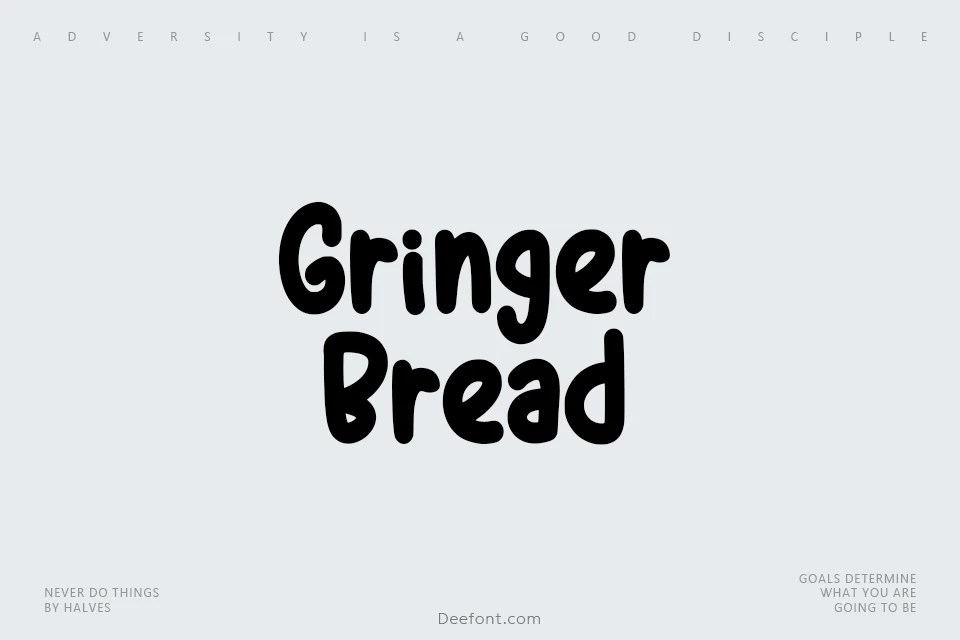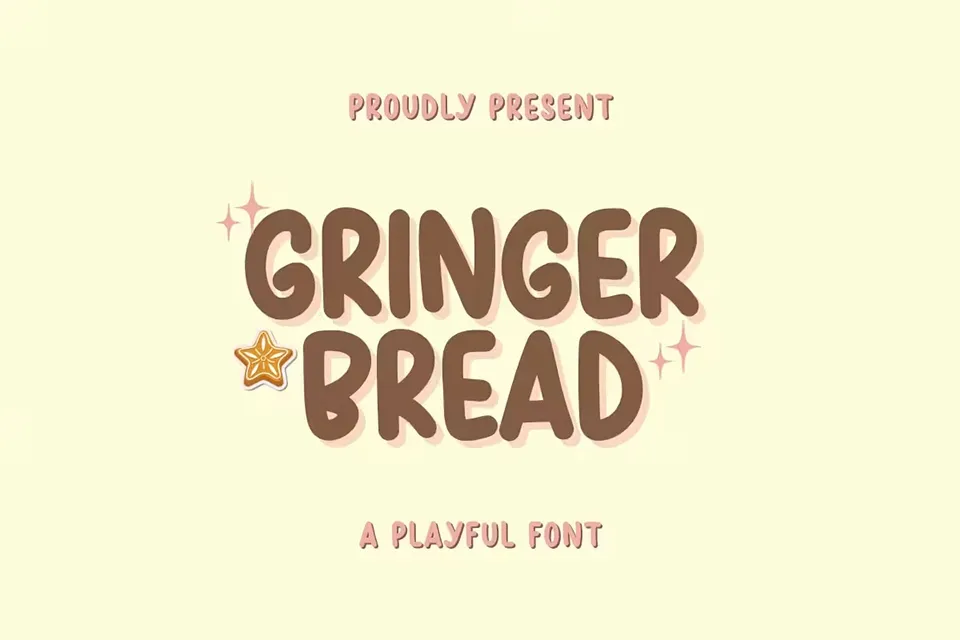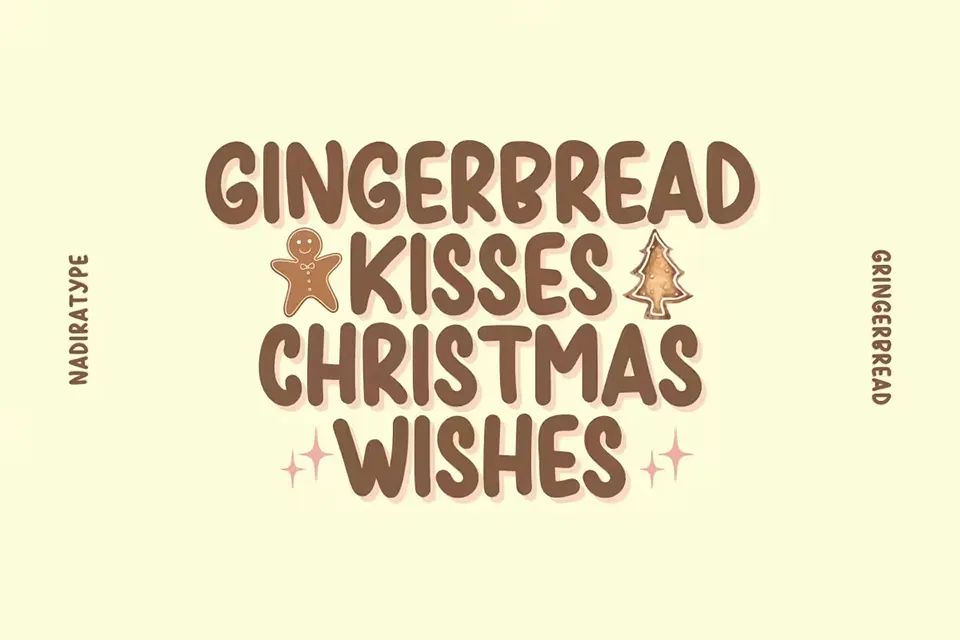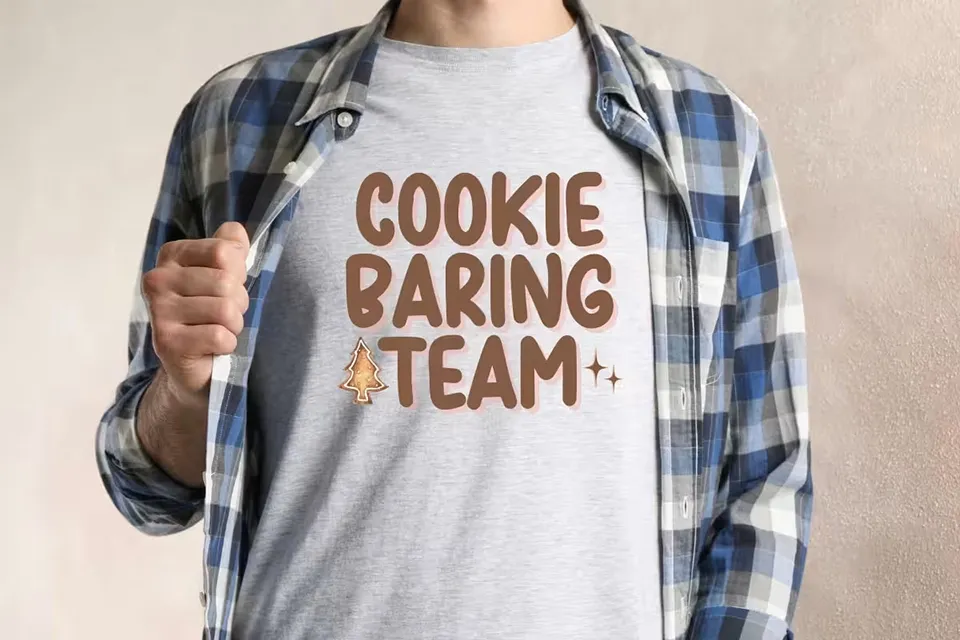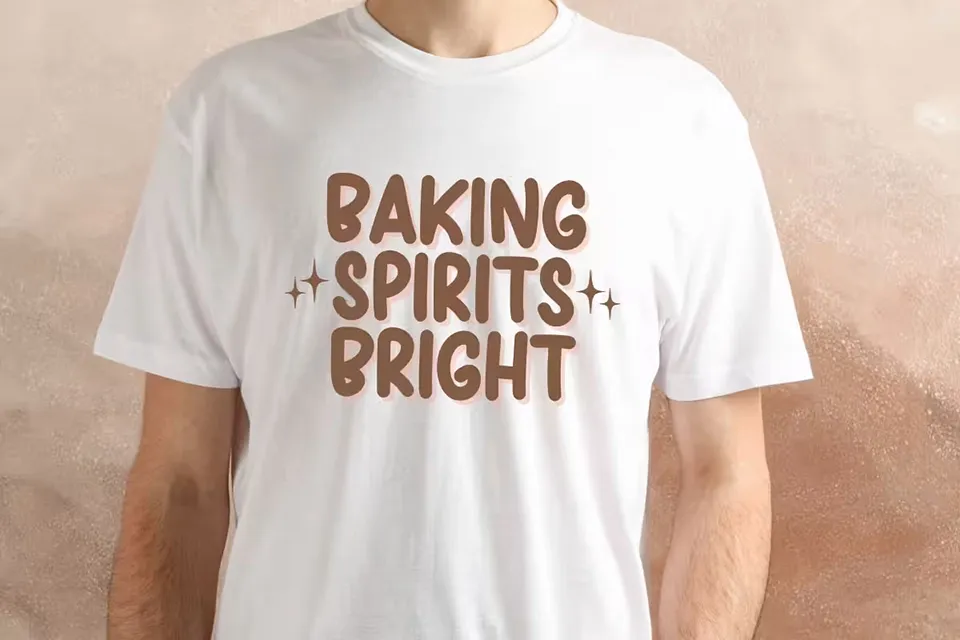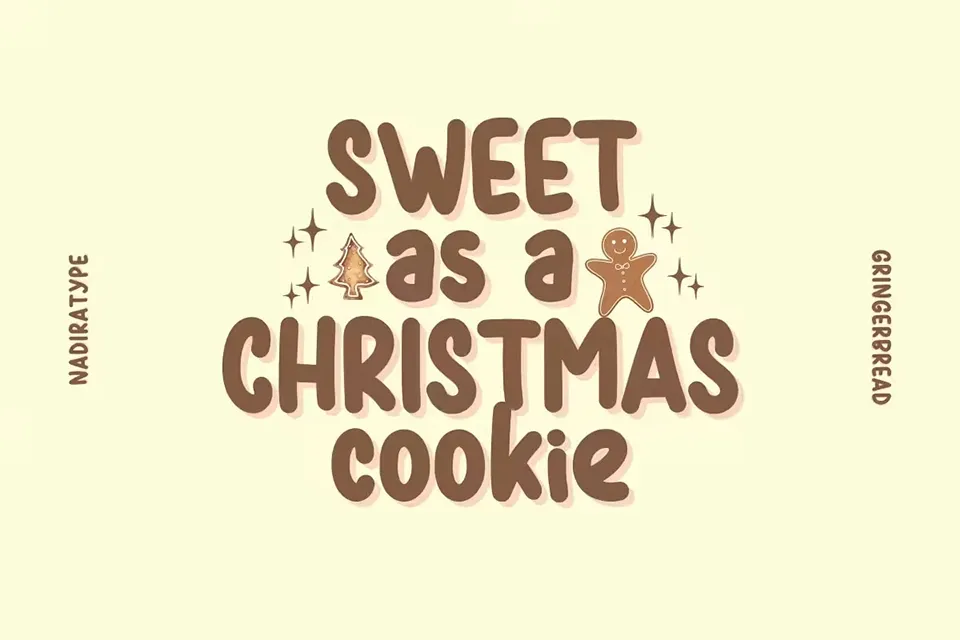
Gringer Bread Font
Gringer Bread Font is a playful handwritten font inspired by cute and fun Christmas typography. Its rounded, friendly letterforms and whimsical details make it perfect for festive invitations, children’s projects, greeting cards, and any design that needs a touch of warmth and joy7. The font brings a delightful, cozy feel to your creative work, helping your designs stand out with personality and charm.
Designed by:Nadiratype